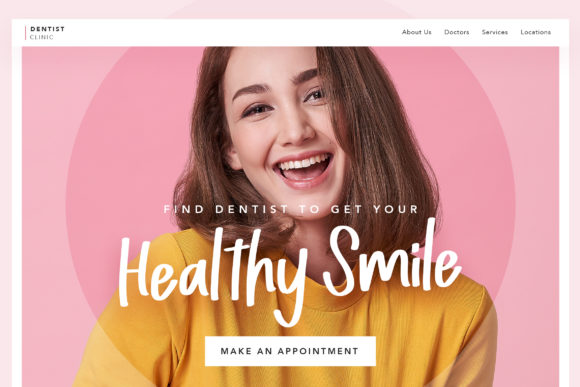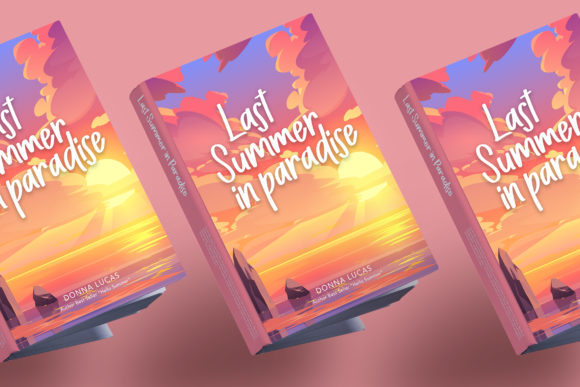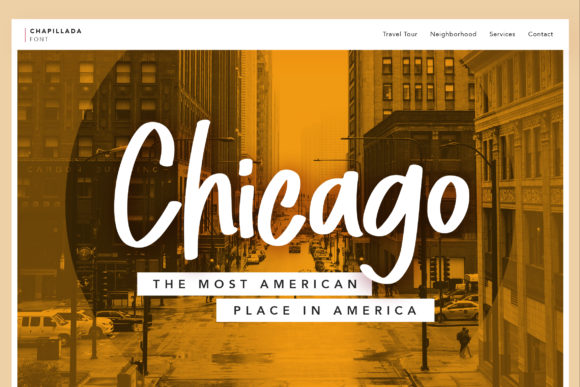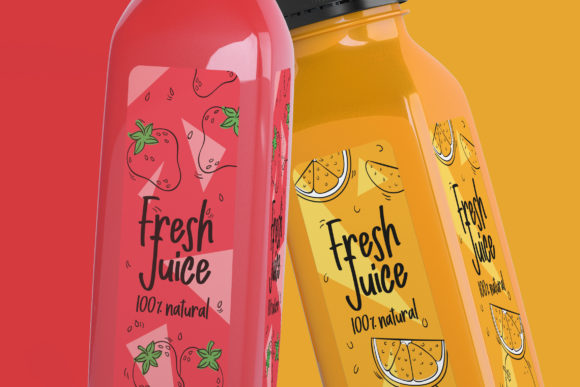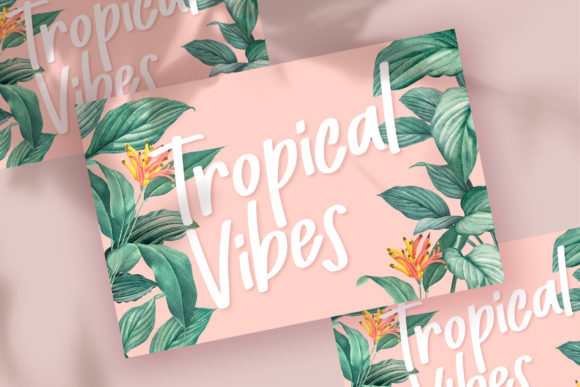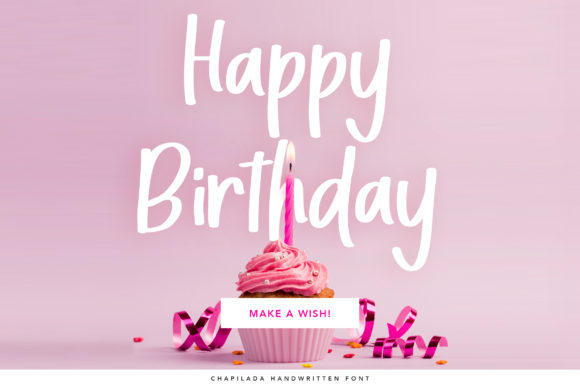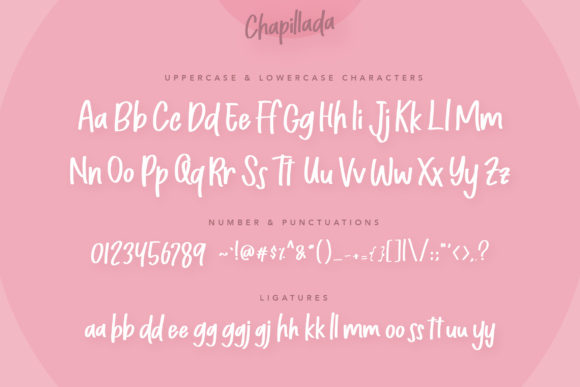
Chapillada Font
About Chapillada Font
Chapillada feels familiar but fresh. This surprising, gorgeous script looks simply stunning and will effortlessly add a playful feel to your next design idea. Fall in love with its unique style.